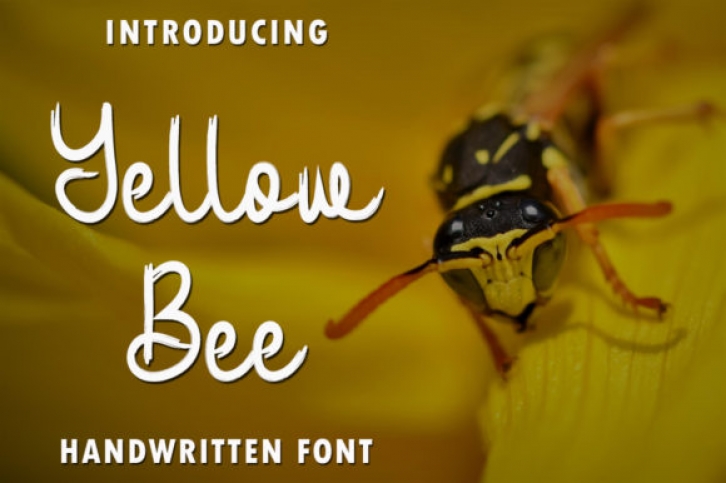
Yellow Bee is a whimsical brushed handwritten font. No matter the topic, this font will be an incredibly asset to your fonts’ library, as it has the potential to elevate any creation.